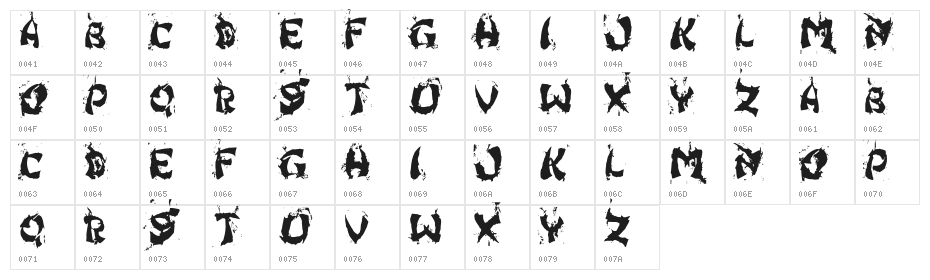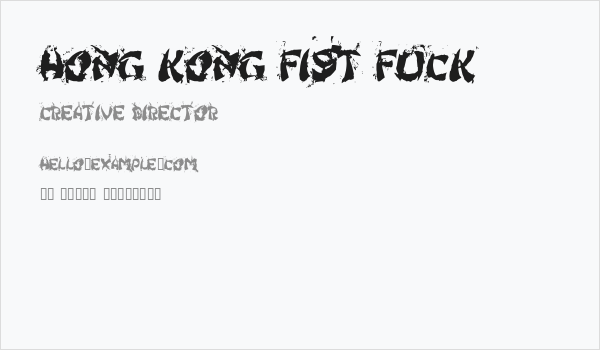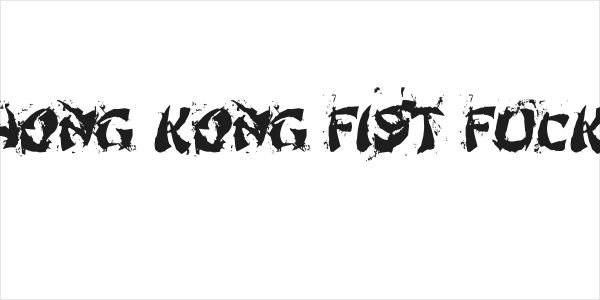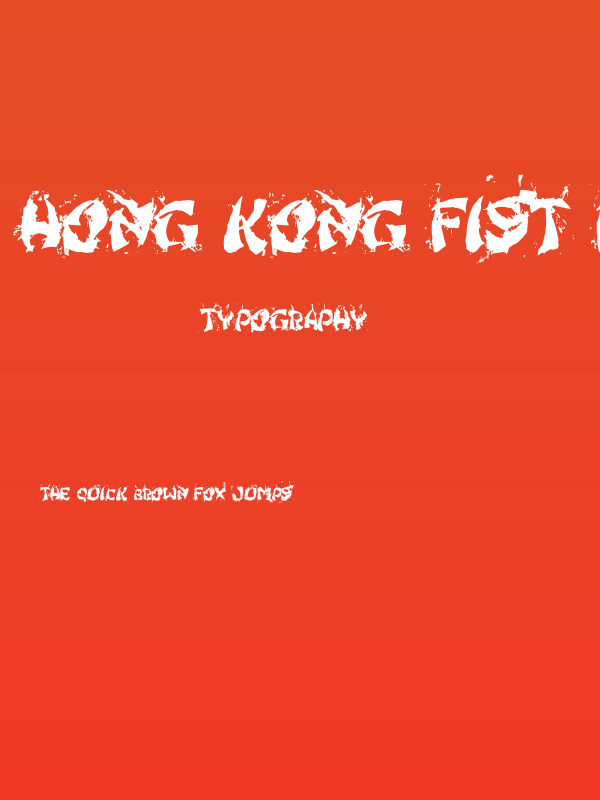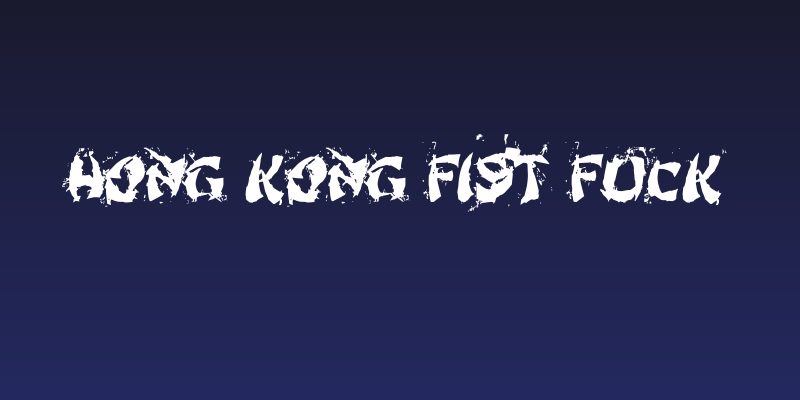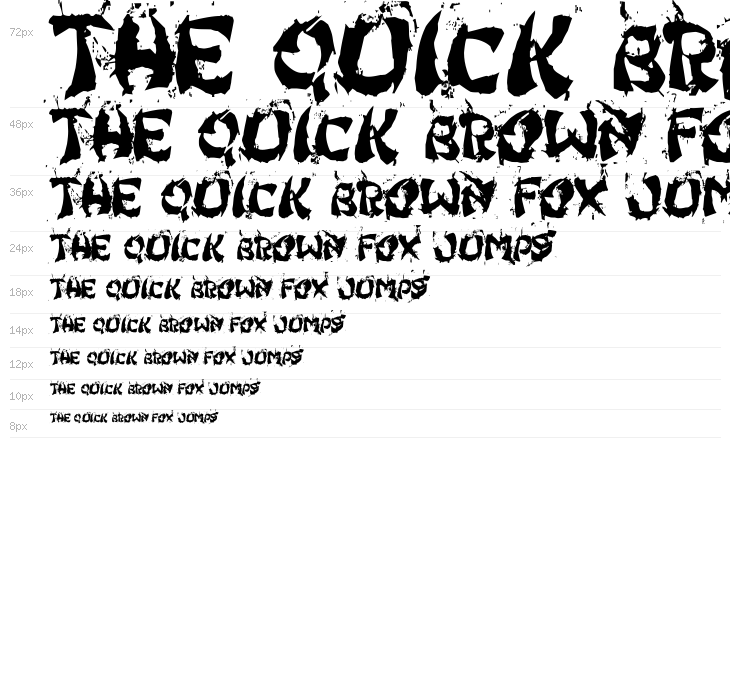
Hong Kong Fist Fuck Font
Hong Kong Fist Fuck Description
This font exhibits a highly distressed and grungy aesthetic, characterized by rough, jagged edges and an irregular form that gives it a chaotic and rebellious feel. The uppercase letters are bold and impactful, with a sense of movement and energy, as if they were hastily painted or scratched onto a surface. The font lacks lowercase letters and numbers, focusing instead on a strong visual impact with its uppercase set. The special characters are not clearly defined, adding to the font's raw and untamed nature. This style is reminiscent of urban graffiti or punk rock album covers, making it ideal for projects that require a bold, edgy statement.
| Overall Style | Grunge, Urban, Edgy |
| Use Case | Logos, Posters, Headlines |
| Proposed Projects | Ideal for music album covers, streetwear branding, event posters, or any project seeking an edgy, rebellious vibe. |